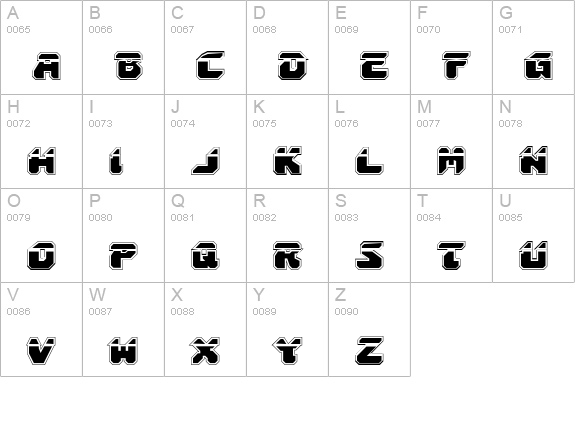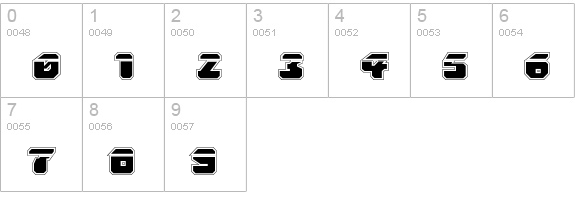
Astropolis Laser Academy font is a futuristic and stylish typeface that exudes a sense of innovation and technology. Its sleek and sharp lines give it a modern and edgy look, making it perfect for sci-fi themed projects, gaming designs, and other creative endeavors. This font is designed to captivate attention and bring a bold statement to any design it is used in. What makes Astropolis Laser Academy font even more appealing is that it is available for free download at FontsMarket.com. This means that you can easily access this eye-catching font without any cost, enabling you to enhance your projects with a touch of contemporary flair. Whether you are a designer, artist, or hobbyist, Astropolis Laser Academy font offers a versatile and dynamic option to add a unique touch to your creations. Download it today and elevate your designs with this cutting-edge font.